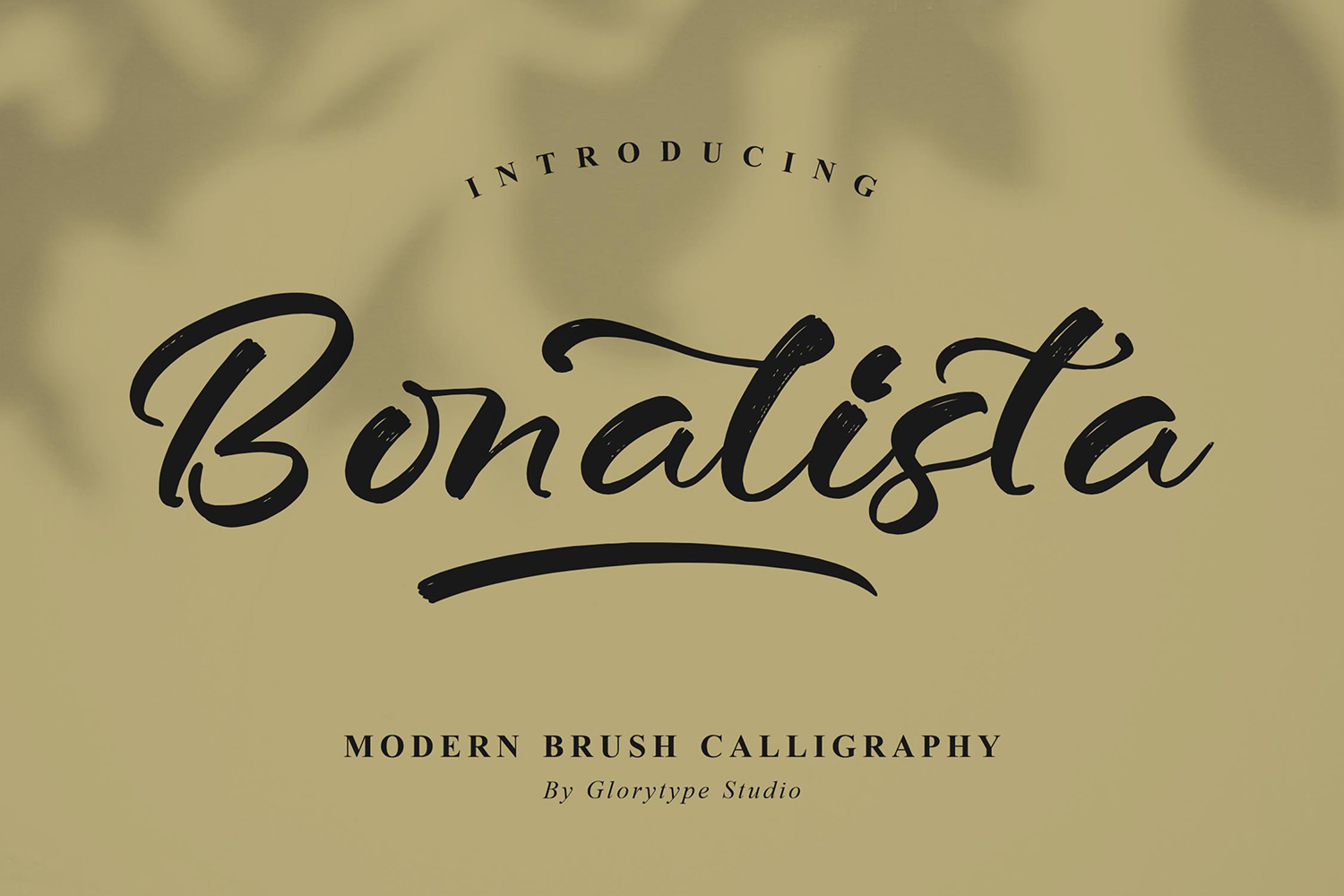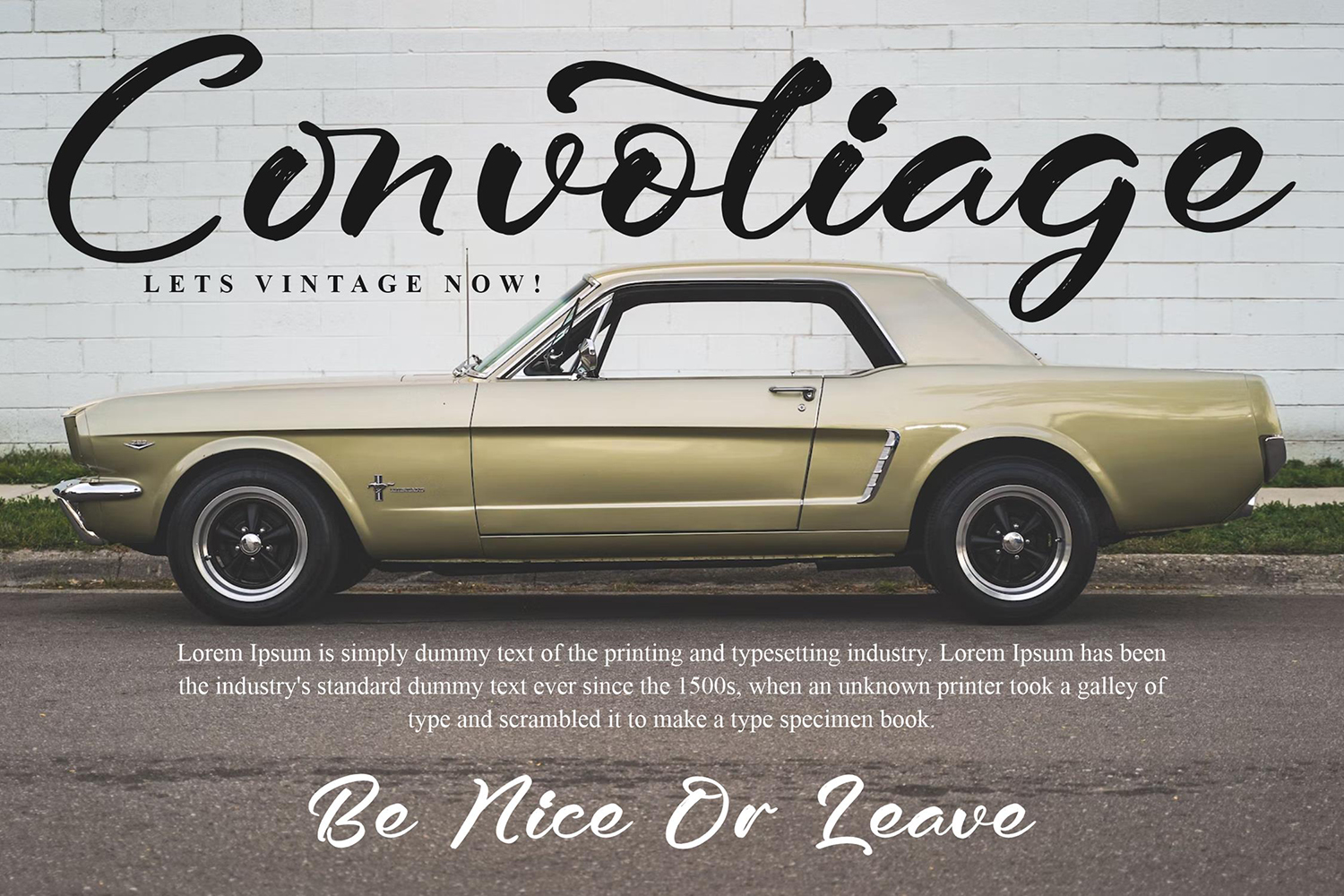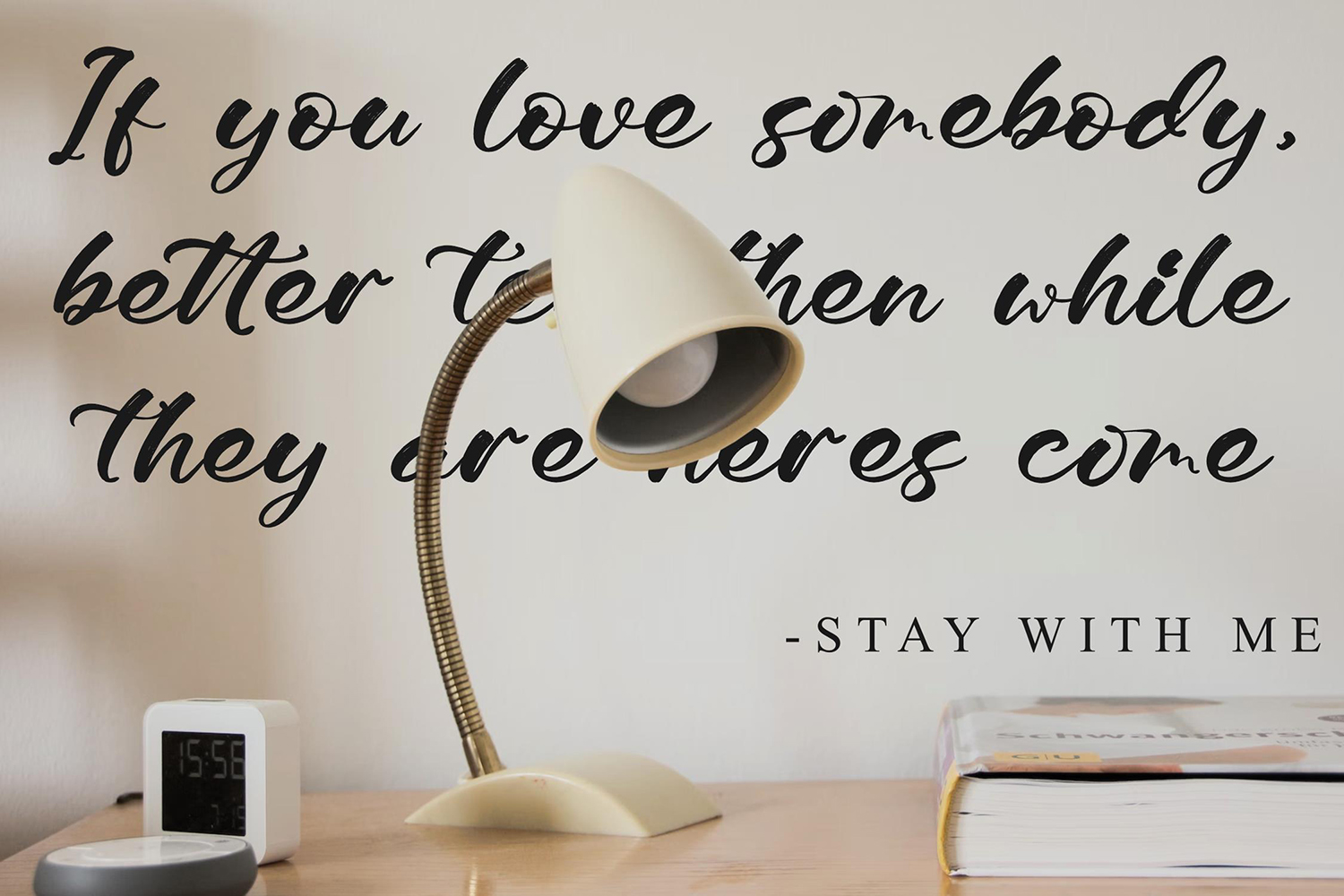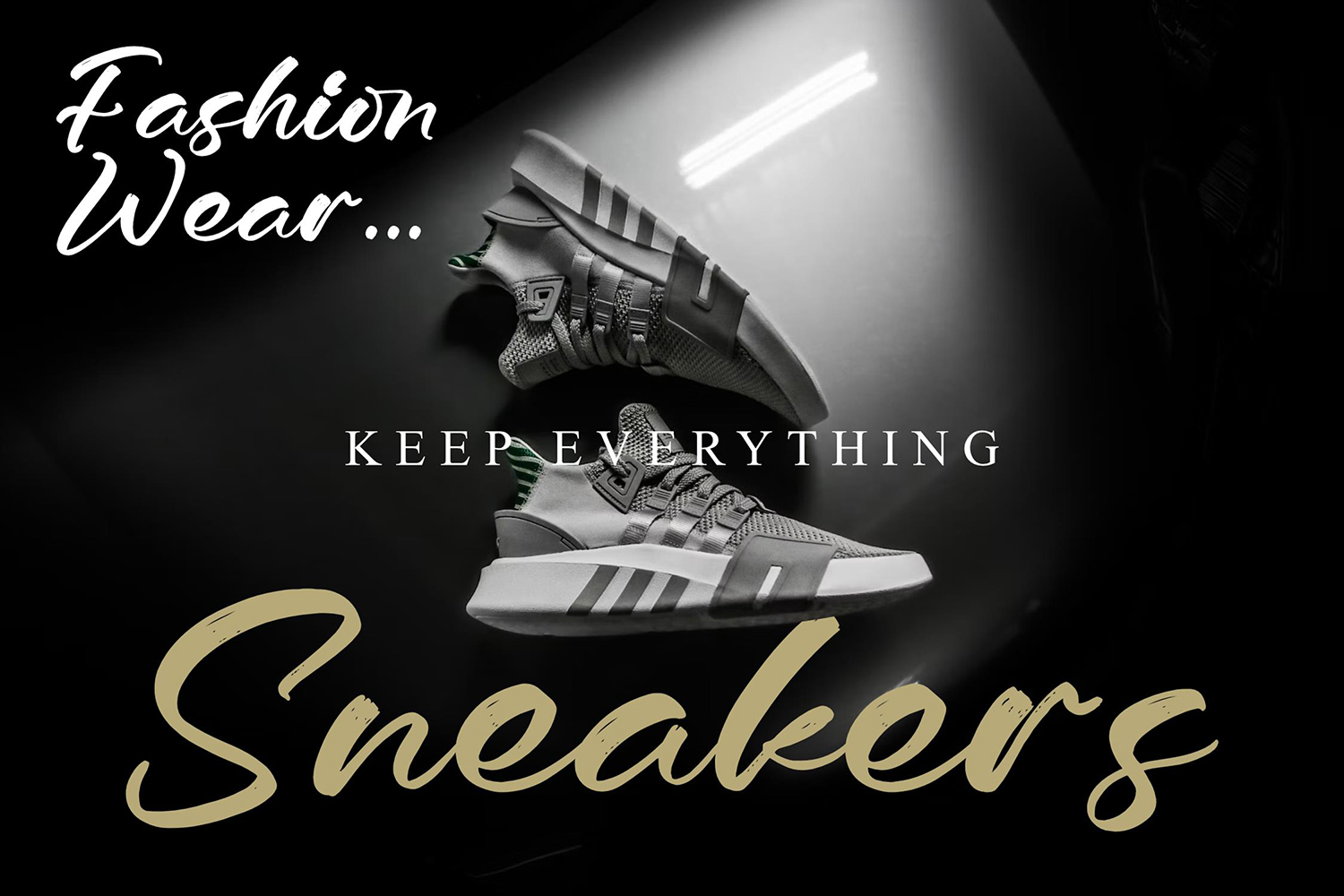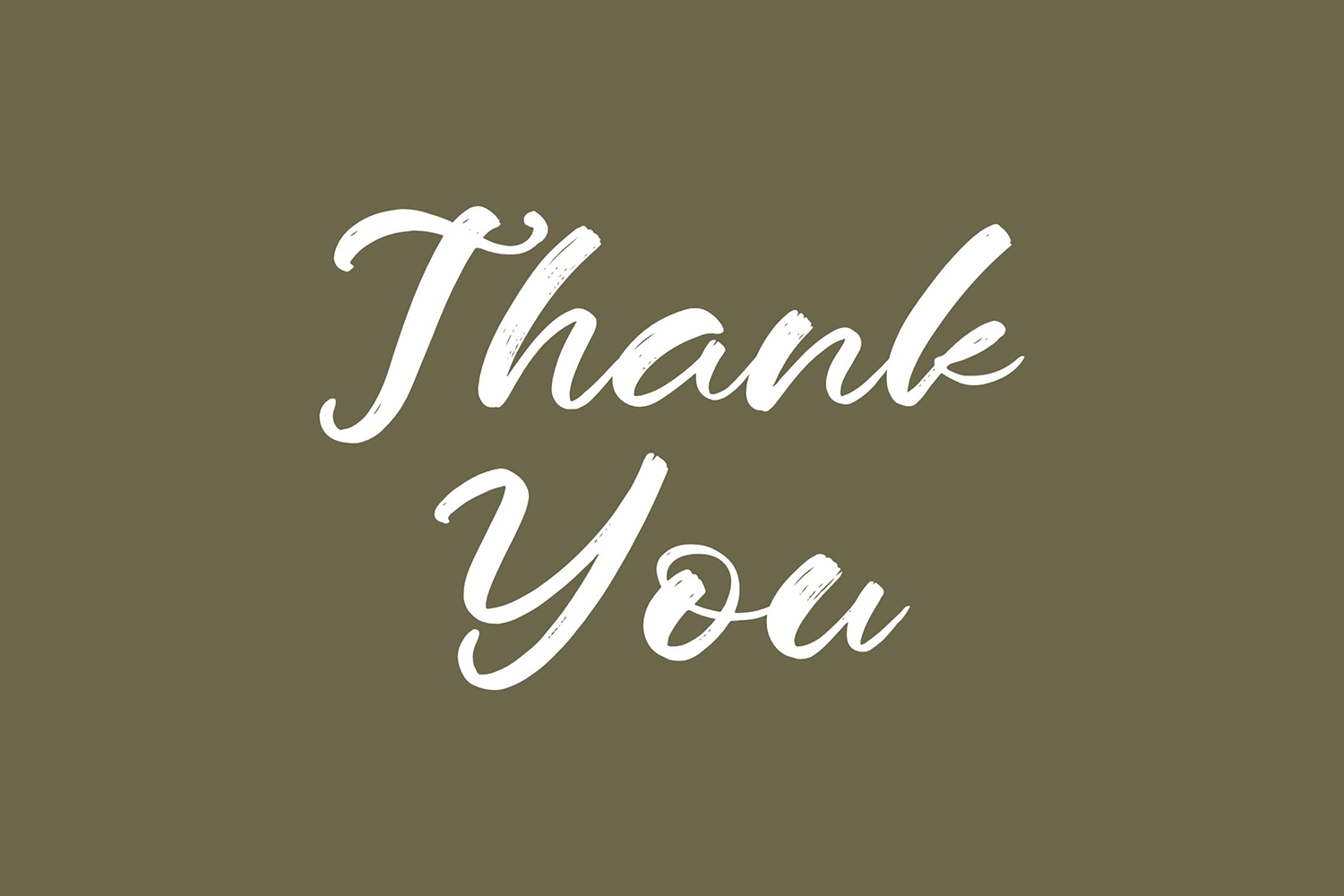
Bonalista Free Font
Meet Bonalista Free Font, a modern brush calligraphy font perfectly suited for a wide range of projects. From logos and branding endeavors to homeware designs, product packaging, mugs, quotes, posters, shopping bags, t-shirts, book covers, name cards, invitation cards, greeting cards, labels, photography, watermarks, special events, and more – Bonalista adds a touch of beautiful script to all your lovely creations. Explore the versatility and elegance of Bonalista as it enhances the aesthetics of your every endeavor. This free typeface was designed by a talented Glorytype Studio. If you like it don’t forget to check out the full version.